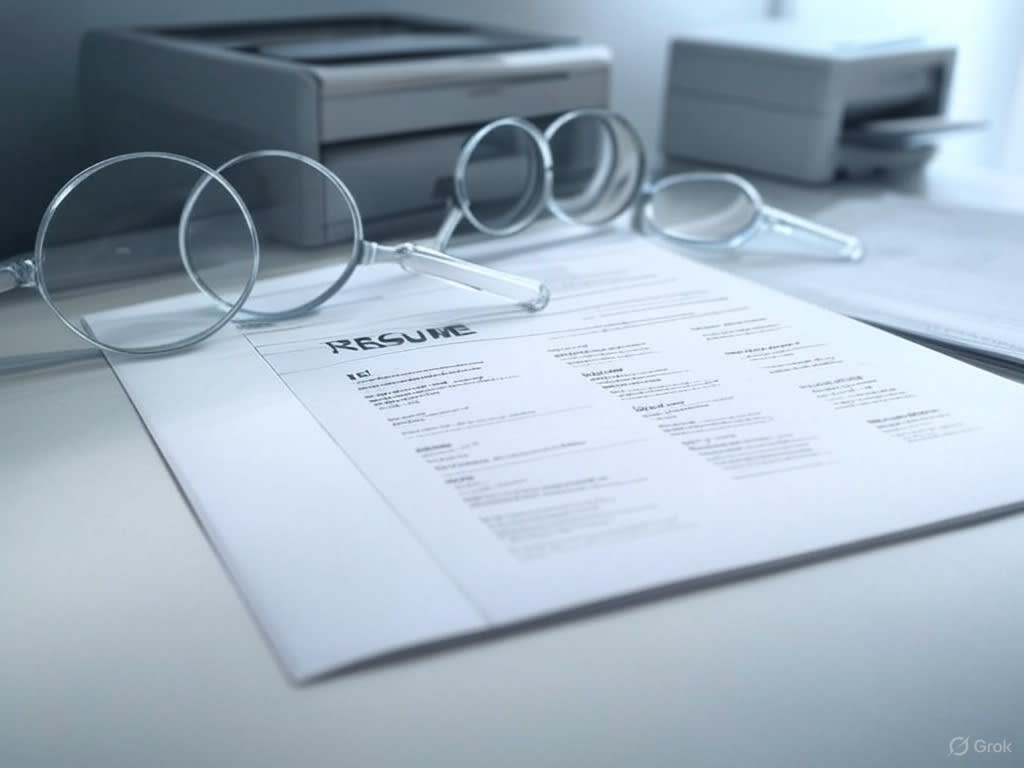
What is the Recommended Font Size for a One-Page CV/Resume That Will Be Printed Out?
Crafting a one-page CV or resume is an art that balances content, design, and readability. When your resume is destined for print, one critical element stands out: the font size on the resume. Choosing the right font size ensures your document is professional, legible, and appealing to hiring managers. But what is the recommended font size for a one-page CV/resume that will be printed out? In this article, we’ll explore this question in detail, offering practical tips, expert insights, and best practices for resume typography to help you create a standout document.
Why Font Size on the Resume Matters
The font size on the resume plays a pivotal role in how your qualifications are perceived. A printed resume needs to strike a balance between fitting all essential information on one page and maintaining readability. Too small a font size can strain the reader’s eyes, while an excessively large font might make your CV look sparse or unprofessional. For a printed document, clarity is king—hiring managers often skim resumes in seconds, and a readable font size ensures they can quickly absorb your skills and experience.
Experts generally recommend a font size between 10 and 12 points for the body text of a one-page resume, depending on the font style and layout. However, headings and your name at the top may require slight adjustments. Let’s break this down further.
Recommended Font Size for Resume Body Text
For the main content of your CV—such as job descriptions, skills, and education—the ideal font size on the resume ranges from 10 to 11 points for most fonts. This size keeps your text legible when printed on standard A4 or letter-sized paper. If you’re using a clean, modern font like Arial, Calibri, or Times New Roman, 11-point text often works best. These fonts are designed for readability, making them staples in professional resume formatting.
However, if you’re tight on space and need to fit more content, a 10-point font size can work, provided the font is still clear. For example, fonts like Garamond or Helvetica, which are slightly more condensed, remain readable at 10 points. Avoid dipping below 10 points, as this risks making your resume look cramped and uninviting when printed.
Font Size for Headings and Your Name
Headings (e.g., "Work Experience," "Education") and your name at the top of the resume deserve special attention. For headings, a font size on the resume of 12 to 14 points is recommended. This creates a visual hierarchy, guiding the reader’s eye through the document without overwhelming the page. Bold formatting can further distinguish these sections.
Your name, as the resume’s focal point, should be larger—typically between 14 and 18 points. This ensures it stands out when printed, especially if your CV lands in a stack of applications. Pair this with a clean layout for a polished printable CV design.
Factors That Influence Font Size on the Resume
The ideal font size on the resume isn’t a one-size-fits-all rule. Several factors come into play:
1. Font Style: Some fonts appear smaller or larger at the same point size. For instance, Times New Roman at 11 points is more compact than Calibri at the same size. Test your chosen font by printing a draft to see how it looks on paper.
2. Content Volume: A resume packed with experience may require a slightly smaller font size (e.g., 10 points) to fit everything on one page. Conversely, if you’re early in your career, an 11-point font can fill the space effectively.
3. Margins and Spacing: Narrower margins (e.g., 0.5 inches) and reduced line spacing (1.0 to 1.15) can accommodate a larger font size while keeping your CV concise.
4. Printer Quality: Low-quality printers may blur small text, so stick to a readable font size like 11 points if you’re unsure about the output.
Best Fonts for a Printable Resume
Choosing the right font style complements your font size on the resume. Here are some popular options for a professional, printable CV:
• Arial: Clean and modern, works well at 10.5–11 points.
• Calibri: The default Microsoft Word font, highly readable at 11 points.
• Times New Roman: A classic choice, best at 11–12 points for a traditional look.
• Garamond: Elegant and space-efficient, suitable at 10–11 points.
• Helvetica: Sleek and professional, ideal at 11 points.
These fonts are widely accepted because they’re easy to read in print and ATS (Applicant Tracking System)-friendly for digital submissions.
How to Test Your Resume’s Font Size
Before finalizing your font size on the resume, print a test copy. Review it under normal lighting conditions to mimic how a hiring manager might see it. Ask yourself:
• Is the text clear without squinting?